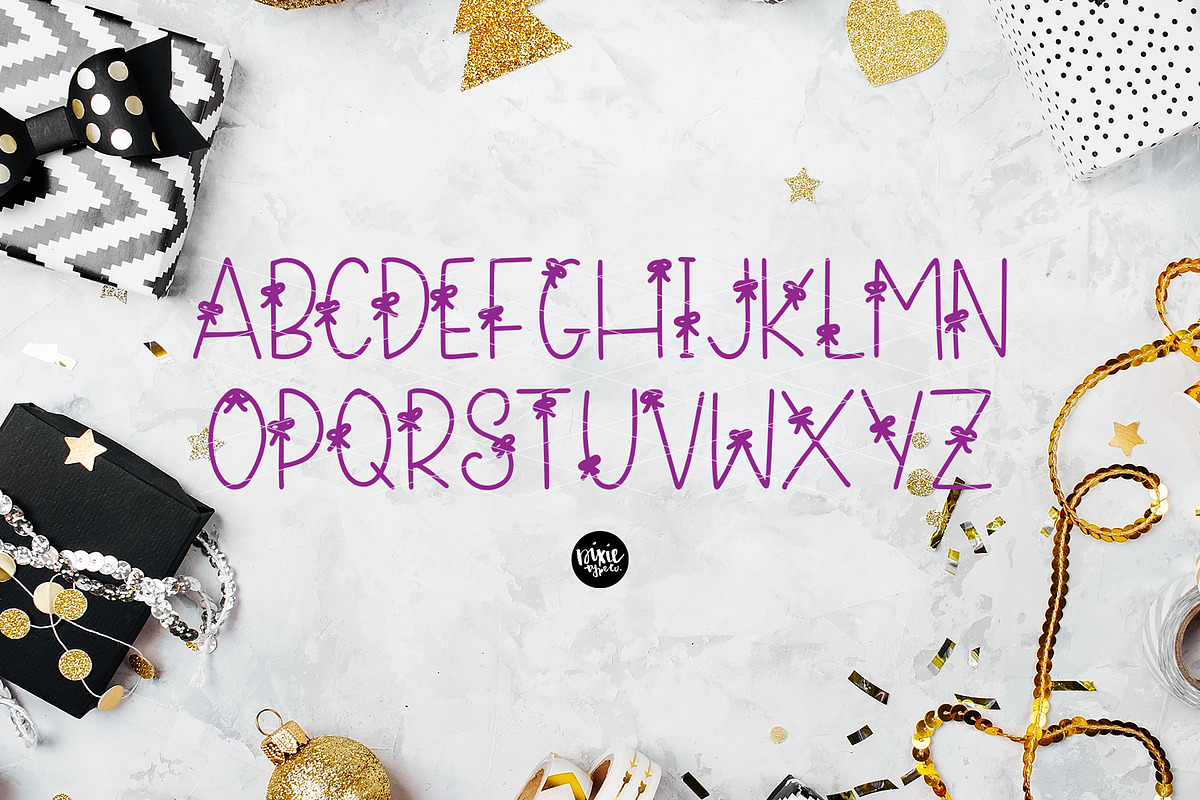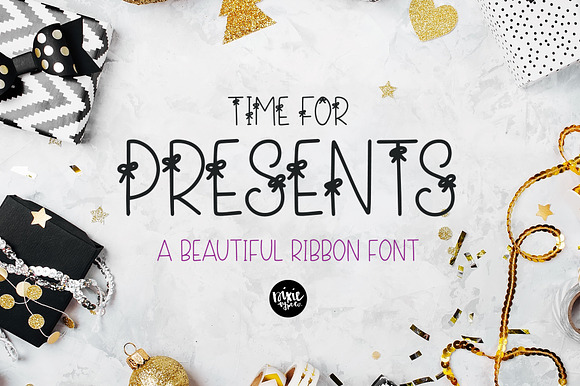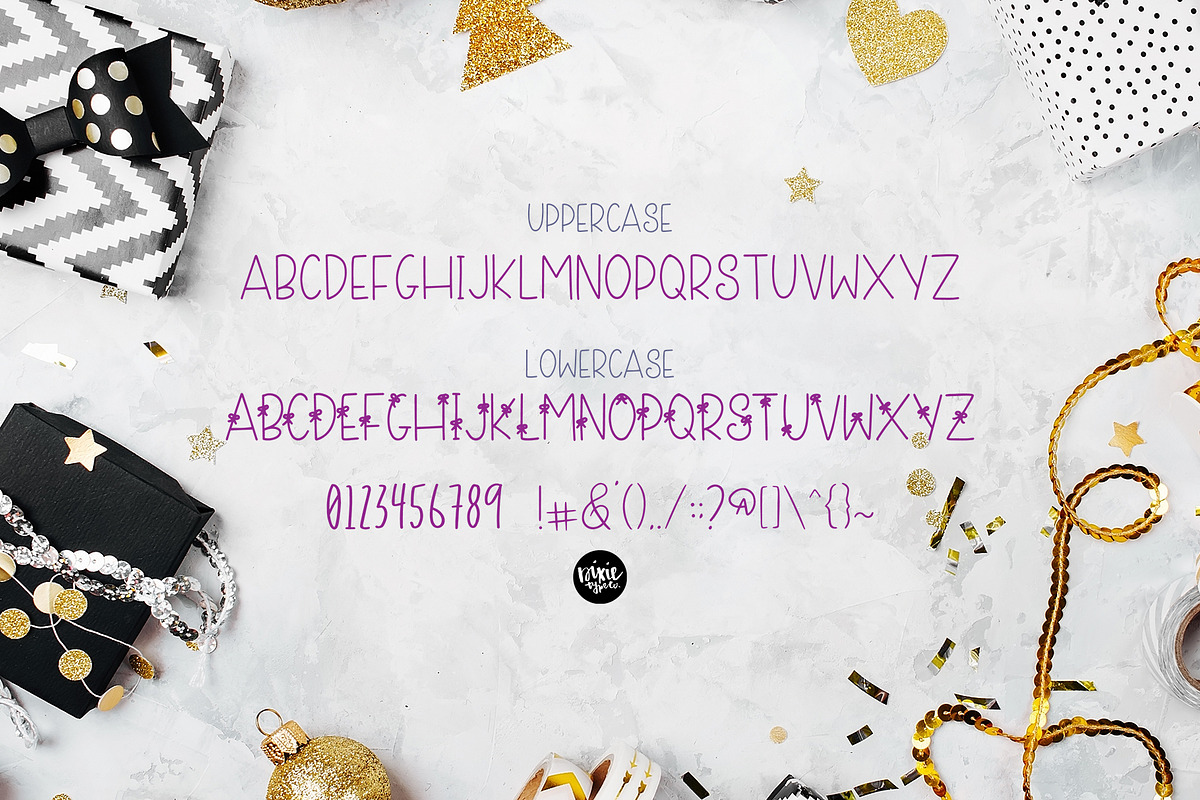
TIME FOR PRESENTS Ribbon Font
"Time For Presents" a fun Christmas ribbon .otf font
{ A typographic font hand lettered with love by Dixie Type Co. }
"Time For Presents" is perfect for your Christmas or birthday projects. Use it on Christmas cards, party crafts and more! This font includes numbers and basic punctuation.
UPPERCASE characters in this font are (matching) basic sans letters, and lowercase characters provide the ribbon letters.